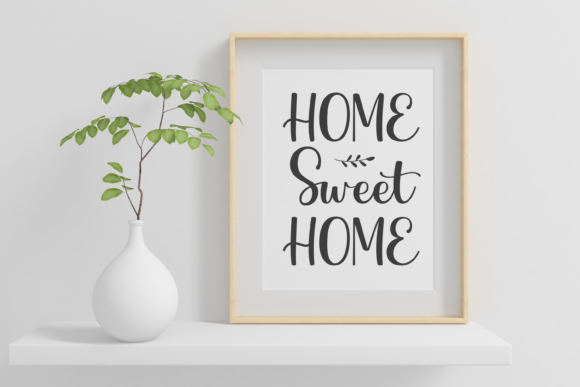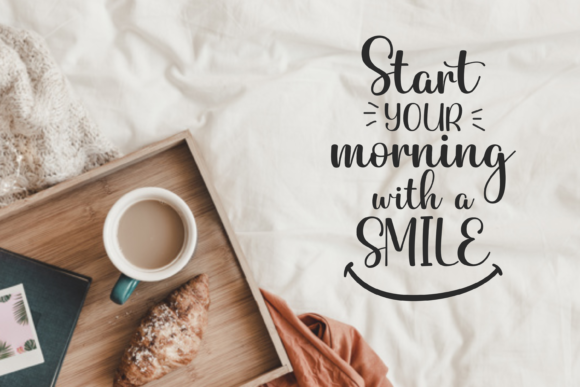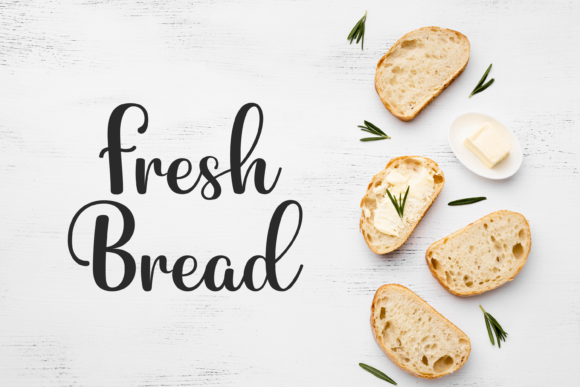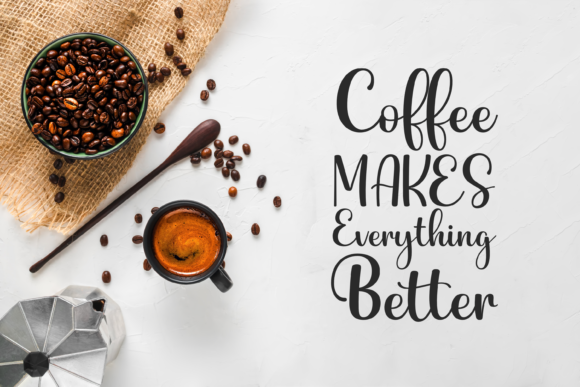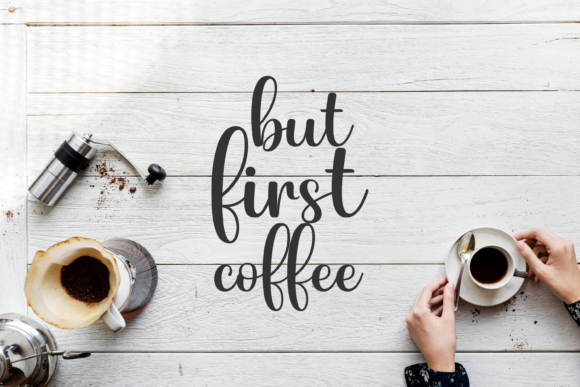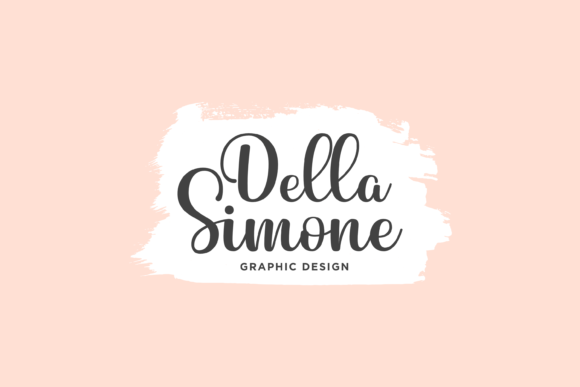
Betterside Font: The Sweet and Cursive Handwritten Font for Your Design Needs
Are you looking for a font that can add a touch of sweetness and romance to your design projects? Look no further than Betterside Font! This beautiful, cursive handwritten font is perfect for a variety of design ideas and is sure to bring a joyful and romantic feel to each of your projects.
What is Betterside Font?
Betterside Font is a sweet and cursive handwritten font that is designed to add a personal touch to your designs. Its gentle and flowing lines make it perfect for creating beautiful and eye-catching text. Whether you’re working on a branding project, a wedding invitation, or a social media graphic, Betterside Font is sure to make your design stand out.
Features of Betterside Font
Betterside Font has a number of features that make it a great choice for designers and crafters. Some of its key features include:
• Sweet and Cursive Design: Betterside Font has a beautiful, cursive design that is sure to add a touch of sweetness and romance to your designs.
• Handwritten Look: The font has a handwritten look that gives it a personal and unique feel.
• Easy to Read: Despite its cursive design, Betterside Font is easy to read and can be used for both headings and body text.
• Versatile: Betterside Font can be used for a variety of design projects, from branding and advertising to wedding invitations and social media graphics.
Uses for Betterside Font
Betterside Font is a versatile font that can be used for a wide range of design projects. Some of the most popular uses for the font include:
• Branding and Advertising: Betterside Font is perfect for creating beautiful and eye-catching branding and advertising materials, such as logos, business cards, and brochures.
• Wedding Invitations: The font’s romantic and cursive design make it perfect for wedding invitations, save the dates, and other wedding stationery.
• Social Media Graphics: Betterside Font can be used to create beautiful and eye-catching social media graphics, such as Facebook posts, Instagram stories, and Pinterest pins.
• Packaging Design: The font can be used for packaging design, such as labels, tags, and product packaging.
Tips for Using Betterside Font
Here are a few tips for using Betterside Font in your design projects:
• Use it as a Headline Font: Betterside Font is perfect for use as a headline font, where its cursive design can really make your text stand out.
• Pair it with a Sans Serif Font: For body text, consider pairing Betterside Font with a sans serif font, such as Arial or Helvetica.
• Experiment with Colors: Betterside Font looks great in a variety of colors, so don’t be afraid to experiment and find the perfect color for your design.
Betterside Font is a beautiful and versatile font that is perfect for designers and crafters looking to add a touch of sweetness and romance to their design projects. Its cursive design, handwritten look, and ease of use make it a great choice for a wide range of design projects. Whether you’re working on a branding project, a wedding invitation, or a social media graphic, Betterside Font is sure to make your design stand out.